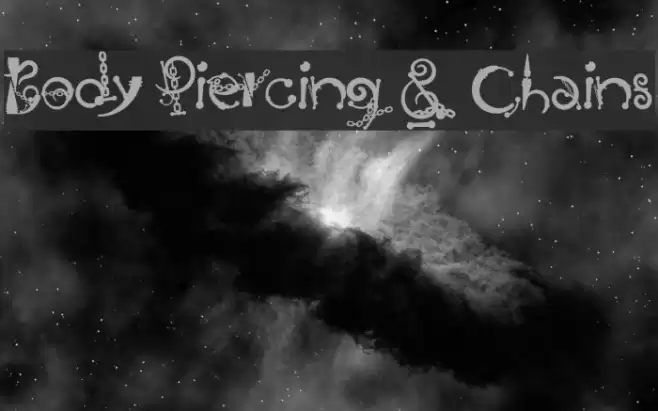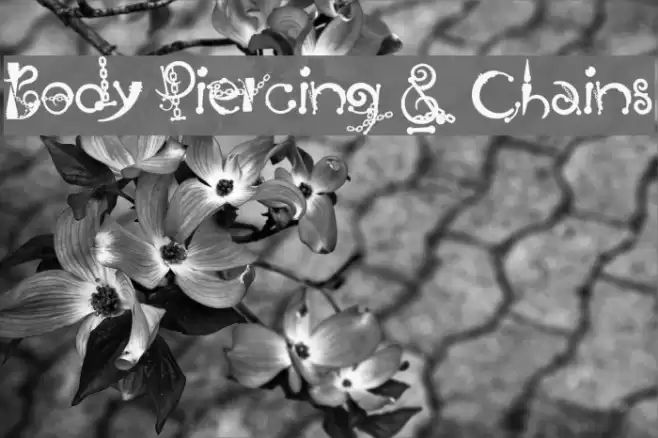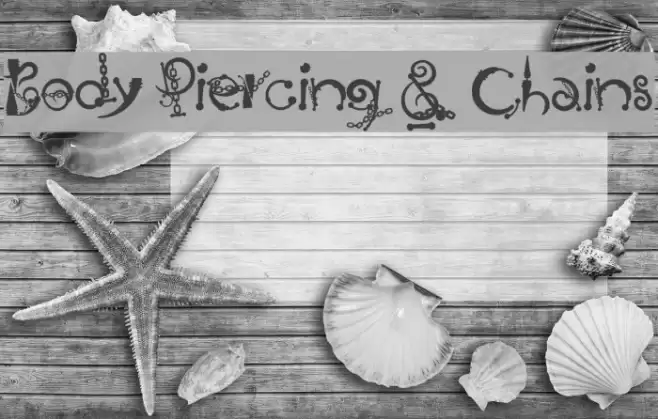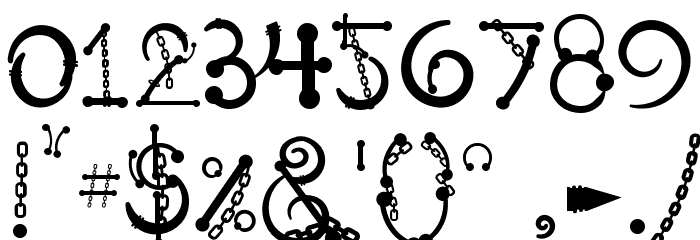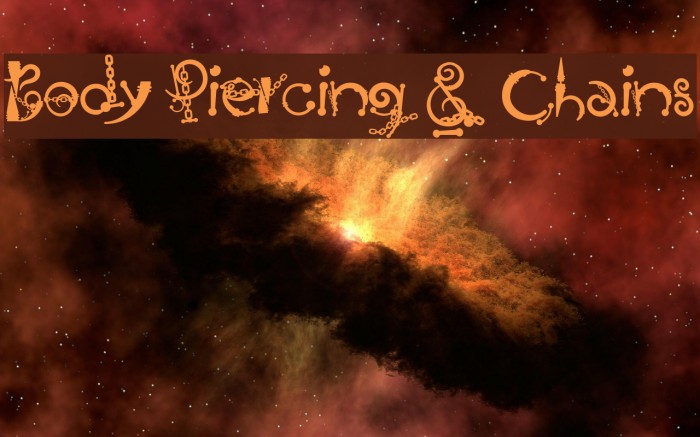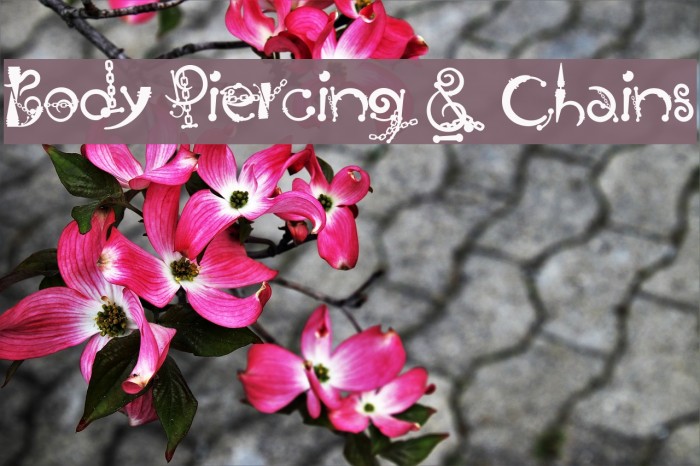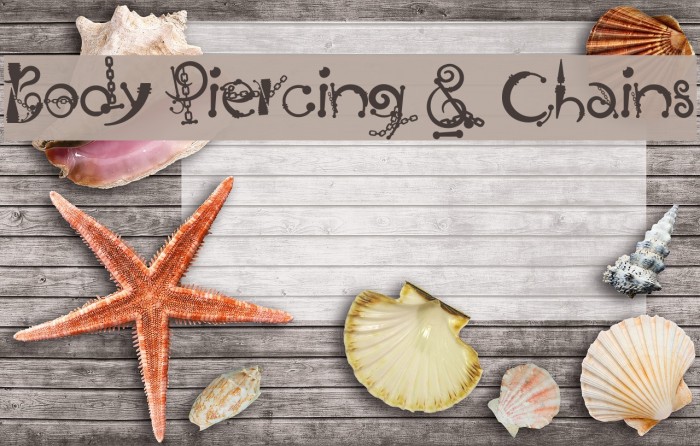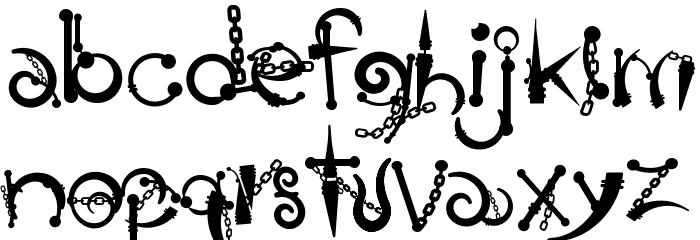
Body Piercing & Chains Font
Body Piercing & Chains Description
This font features a unique and edgy design, incorporating elements reminiscent of body piercings and chains. Each character is adorned with intricate details that mimic the appearance of metal links and studs, creating a bold and rebellious aesthetic. The uppercase and lowercase letters, as well as numbers and special characters, all maintain this consistent theme, making it ideal for projects that require a distinctive and unconventional look. The font's playful yet daring style is perfect for capturing attention and conveying a sense of individuality.
A bold, edgy font inspired by body piercings and chains from Decorative fonts.
- Proposed Projects: Ideal for music album covers, fashion branding, tattoo parlors, and alternative event posters.
- Overall Style: Modern, Decorative